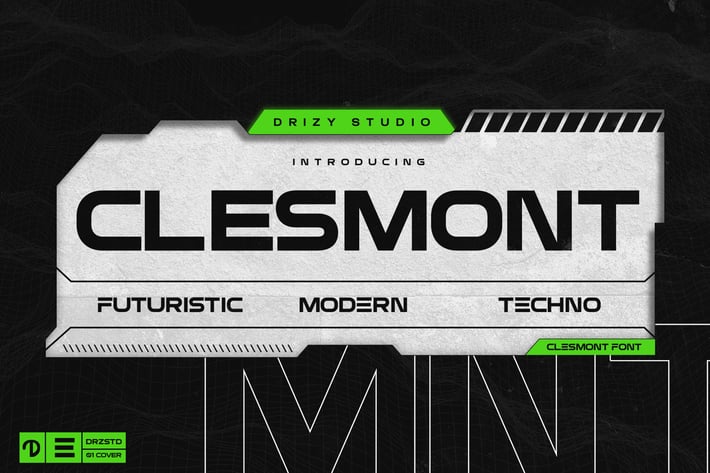
Clesmont - Modern Futuristic Font
Clesmont is a Modern Futuristic Font from Drizy studio. Offering all the basic styles you will need especially modern theme project.
Clesmont Script Features:
Allcaps
Multilinguals
Alternates